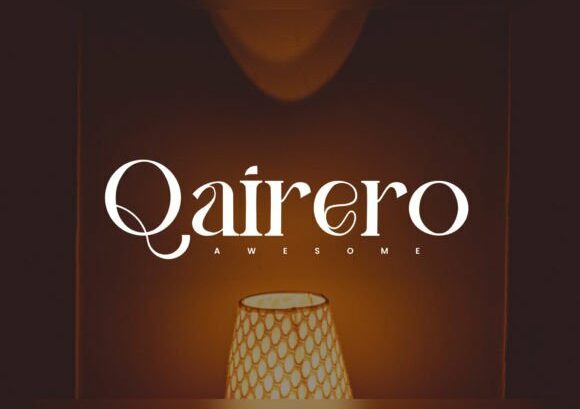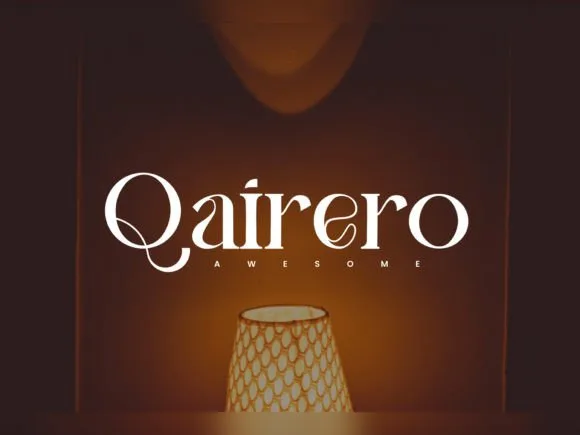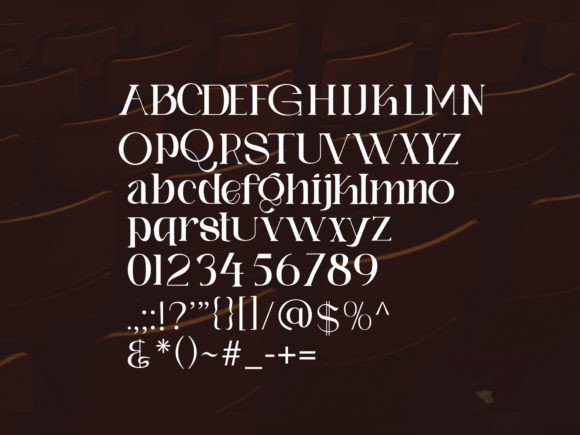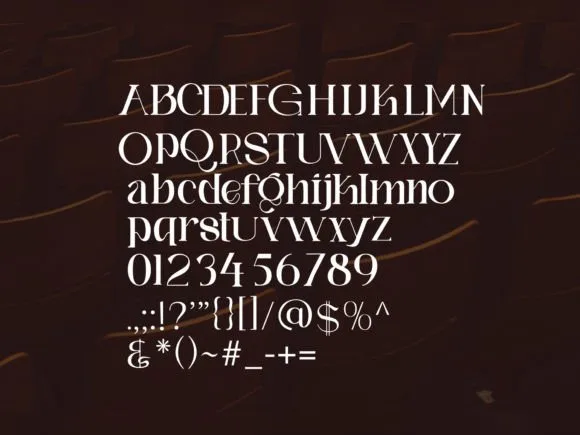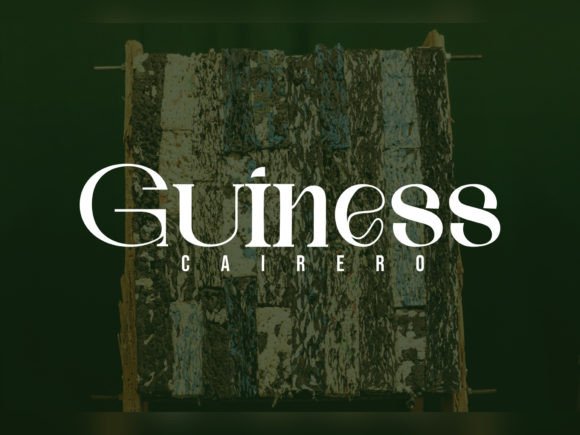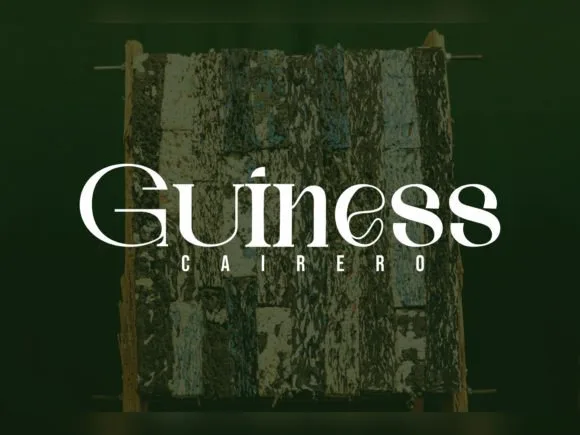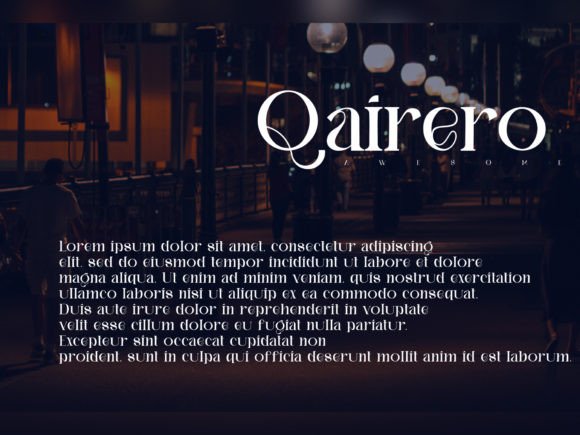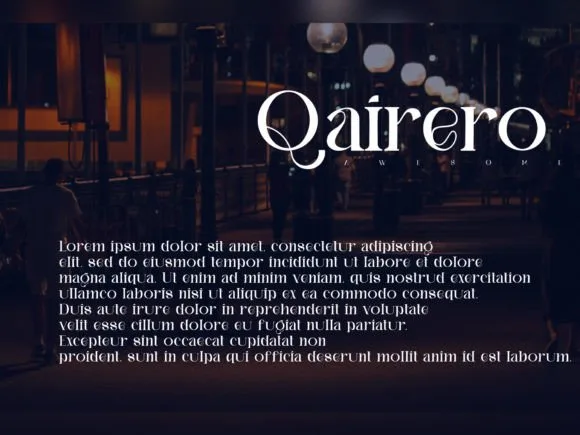
QAIRERO FONT SPECIMEN
Qairero is an elegant, simple, and beautiful slab serif font with a unique and lovely feel.
It is perfect for logo designs, magazines, social media, brochures, and many more.